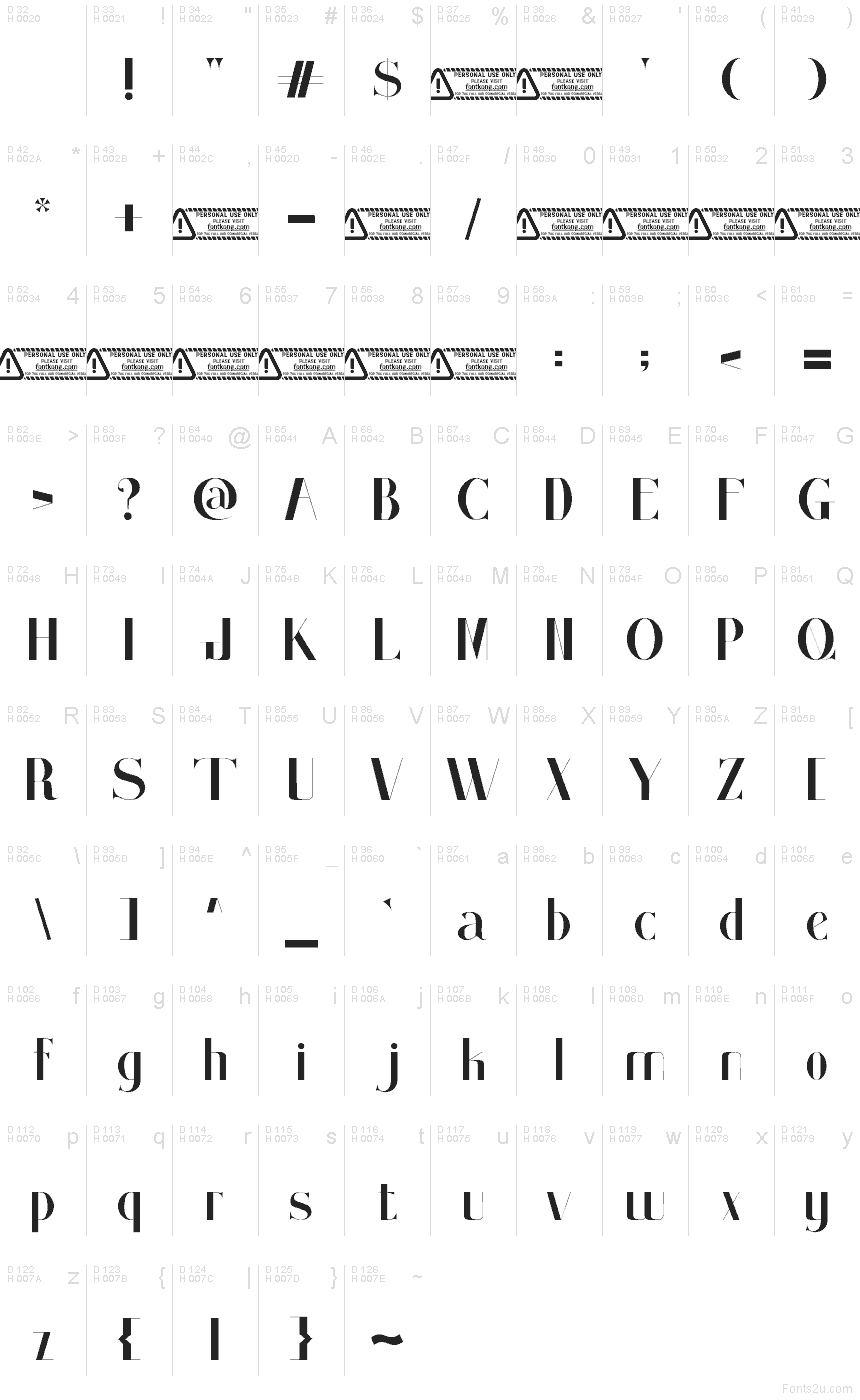
Lalissa
Lalissa font by Kong Font is a sophisticated and elegant modern serif with distinctive curves and refined aesthetics. Its high-fashion appeal makes it a beautiful fit for projects that demand a touch of class and modernity.